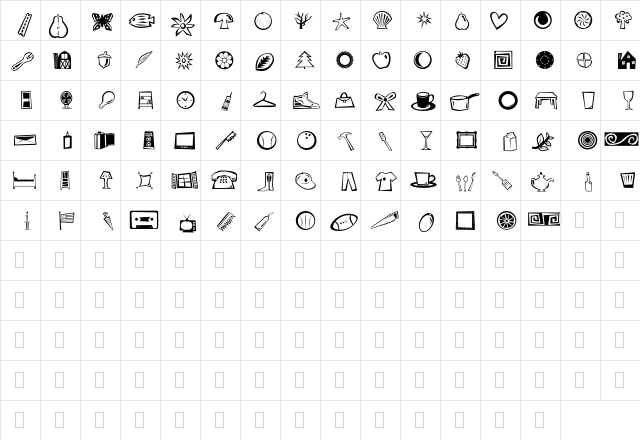
Df Regular Font Preview
Df Regular
Design Context for Df Typeface
Df is a composed and adaptable typeface that performs quietly and consistently across a wide range of design contexts.